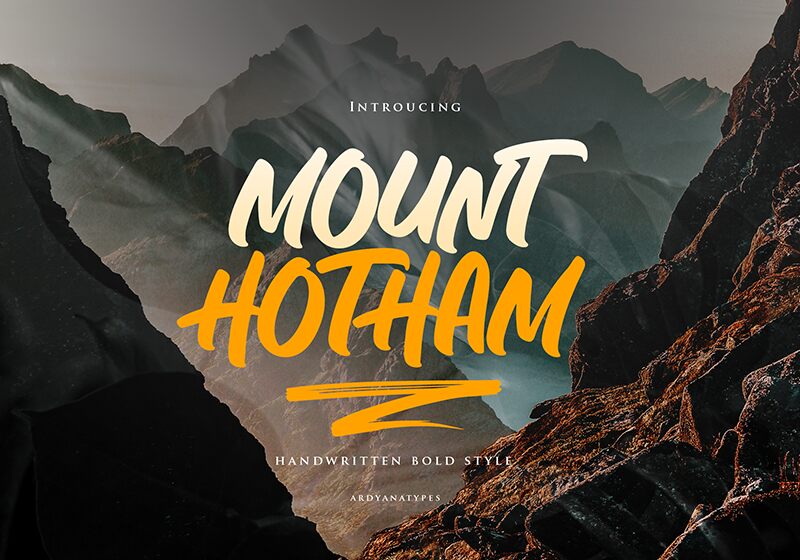
Hotham is a bold and beautiful smooth handwritten font, designed by Ardyana Types. Its unique style makes it perfect for a variety of creative projects such as branding, packaging, logos, social media graphics, and more. The smooth curves and thick lines of Hotham add a touch of elegance to any design. Whether you're looking to create eye-catching headlines or stunning calligraphy pieces, this font has got you covered. With its bold weight, Hotham will make sure your message never goes unnoticed. Bring your designs to life with the charming and sophisticated Hotham font!